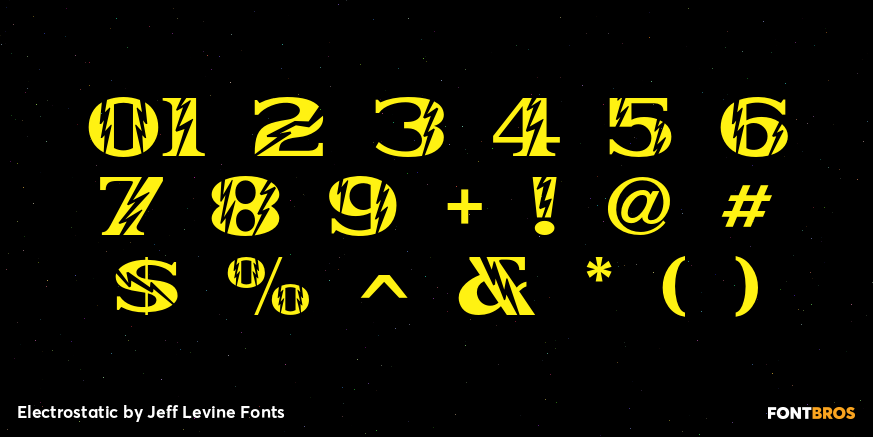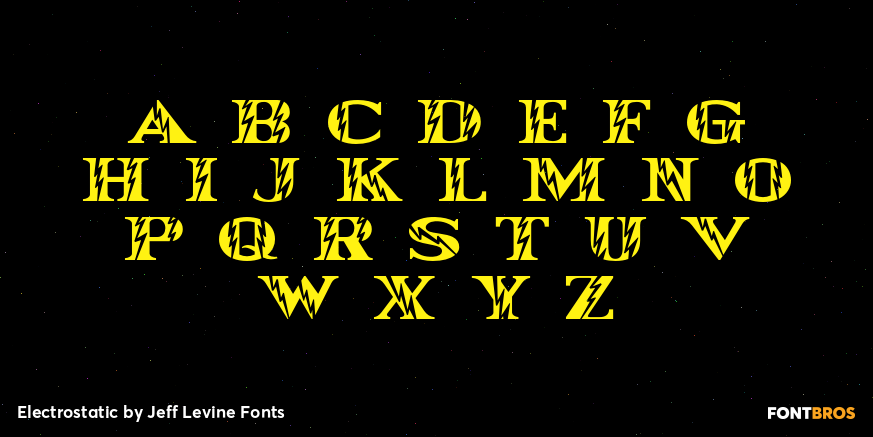
Electrostatic
Electrostatic JNL was inspired by the 1930s lettering for radio station WMCA in New York City. It was found as part of an ad for the station in a 1932 radio broadcasting trade magazine. WMCA went on the air Feb. 6, 1925.
According to Wikipedia, the 'MCA' call letters stood for the Hotel McAlpin, where the station's original studio and transmitter were located. 'W' is the call sign prefix for all broadcast stations East of the Mississippi River; with the exception of KDKA (Pittsburgh), which was the nation's first commercial radio station.
This bold novelty typeface with lightning bolds intersecting the characters can be used to represent anything from electricity to stormy days; power generators to brute force and so forth.
Electrostatic JNL is available in both regular and oblique versions.